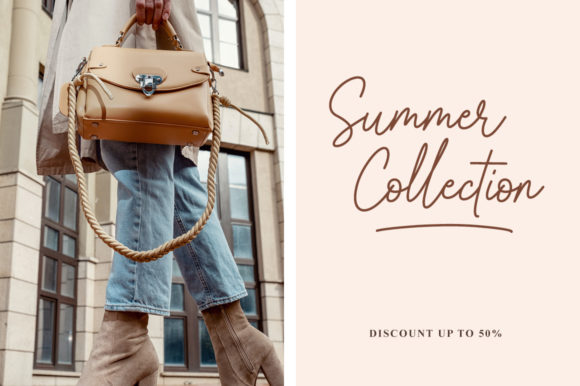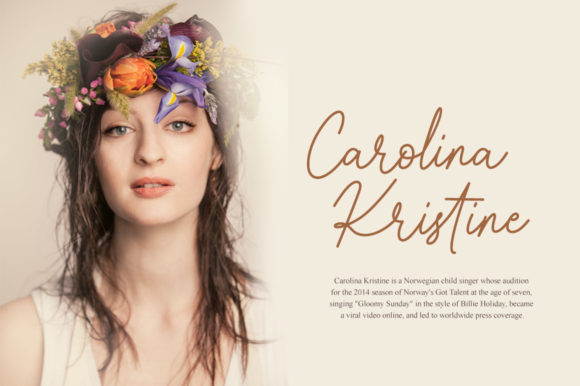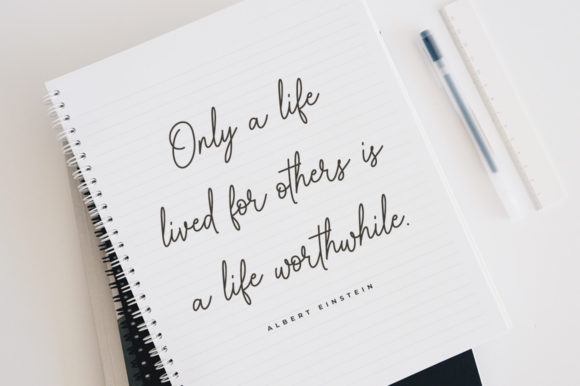
Introduction to Meilleur Font
Have you ever been working on a creative project and suddenly, the perfect font pops into your mind? It’s that moment when everything falls into place, and your design comes alive. For many designers, this moment is what makes all the hard work worth it. Today, we’re excited to introduce you to the Meilleur Font, a stunning handwritten font that’s sure to elevate your designs to the next level.
As a valuable resource for designers, the Meilleur Font offers a high-quality solution for any creative project. With its elegant touch and dainty vibe, this font is perfect for adding a personal touch to your designs. Whether you’re working on a logo, poster, or social media graphics, the Meilleur Font is sure to make your designs stand out.
- Unique, hand-crafted design elements, making it an excellent design resource for creatives and businesses.
Honest Review: Meilleur Font
As a designer, I’m always on the lookout for high-quality design resources that can elevate my creative projects. Meilleur Font is a free download that I recently stumbled upon, and I’m excited to share my honest review with you.
- Meilleur Font offers a wide range of stylish and modern fonts that can add a touch of sophistication to any design project.
- The font selection is limited, and I didn’t find any fonts that stood out as particularly unique or creative.
Overall, Meilleur Font is a solid design resource that can be a useful addition to any designer’s toolkit. While it has its limitations, the free download option and transparent background feature make it a great choice for designers looking for a high-quality, easy-to-use font.
For optimal results, use Meilleur Font fonts with a transparent background to achieve a clean and minimalist design. Experiment with different font combinations to create unique and eye-catching designs.
Meilleur Font is ideal for a variety of creative projects, including:
- Brochures and flyers
- Logo design and branding